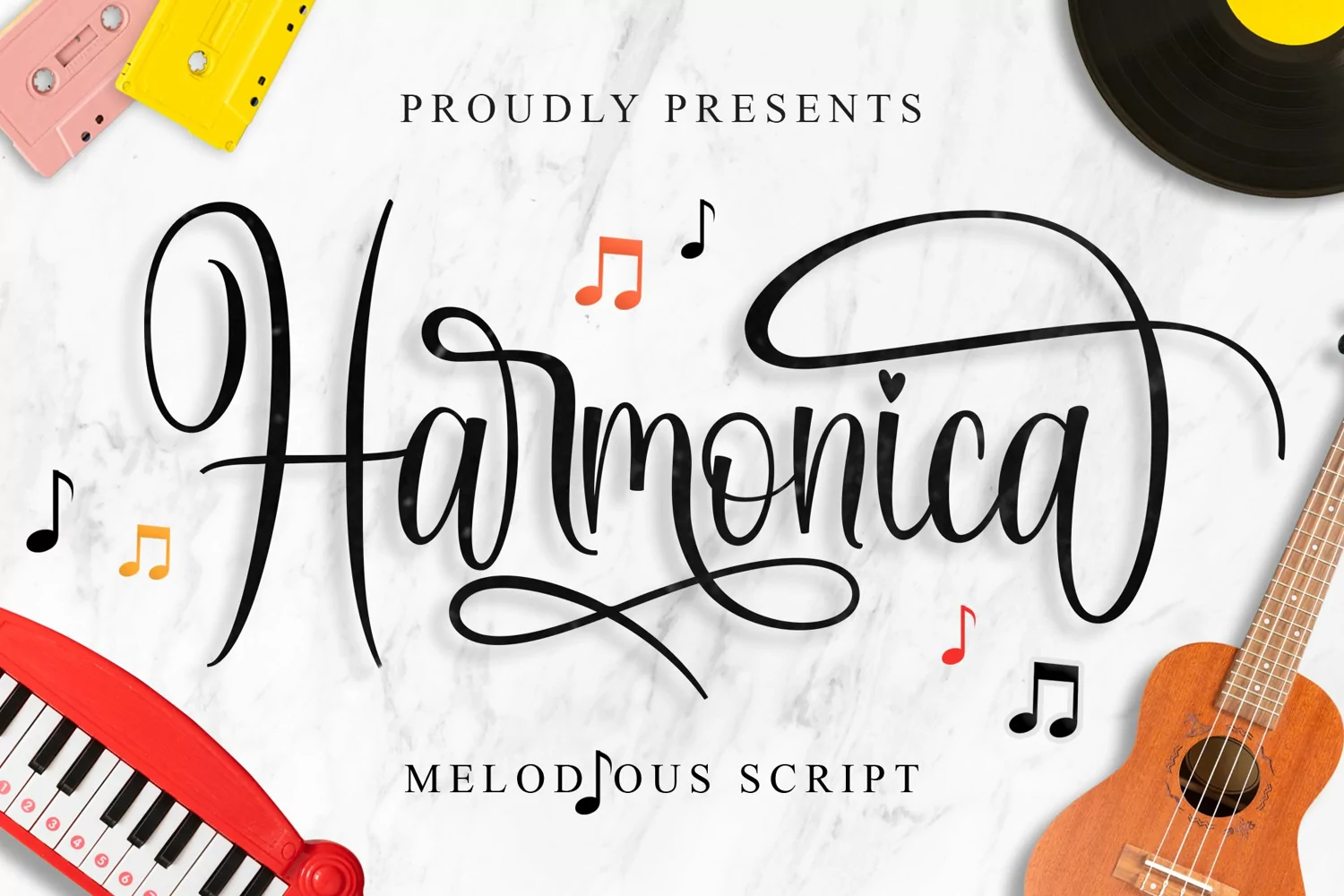
Harmonica is a modern calligraphy typeface. It will make your design looks beautiful and elegant. It's perfect for designing card name, quotes, invitation, crafts, and much more.
FEATURES :- Uppercase